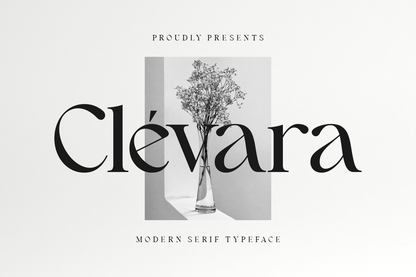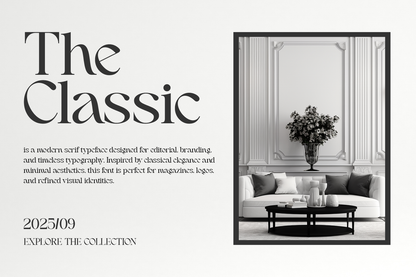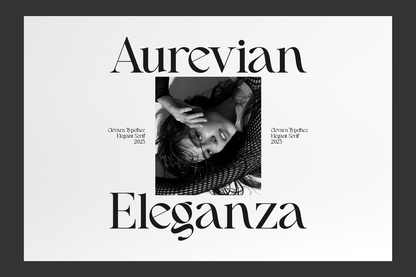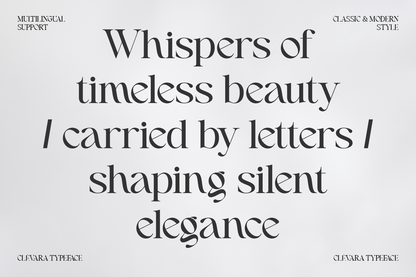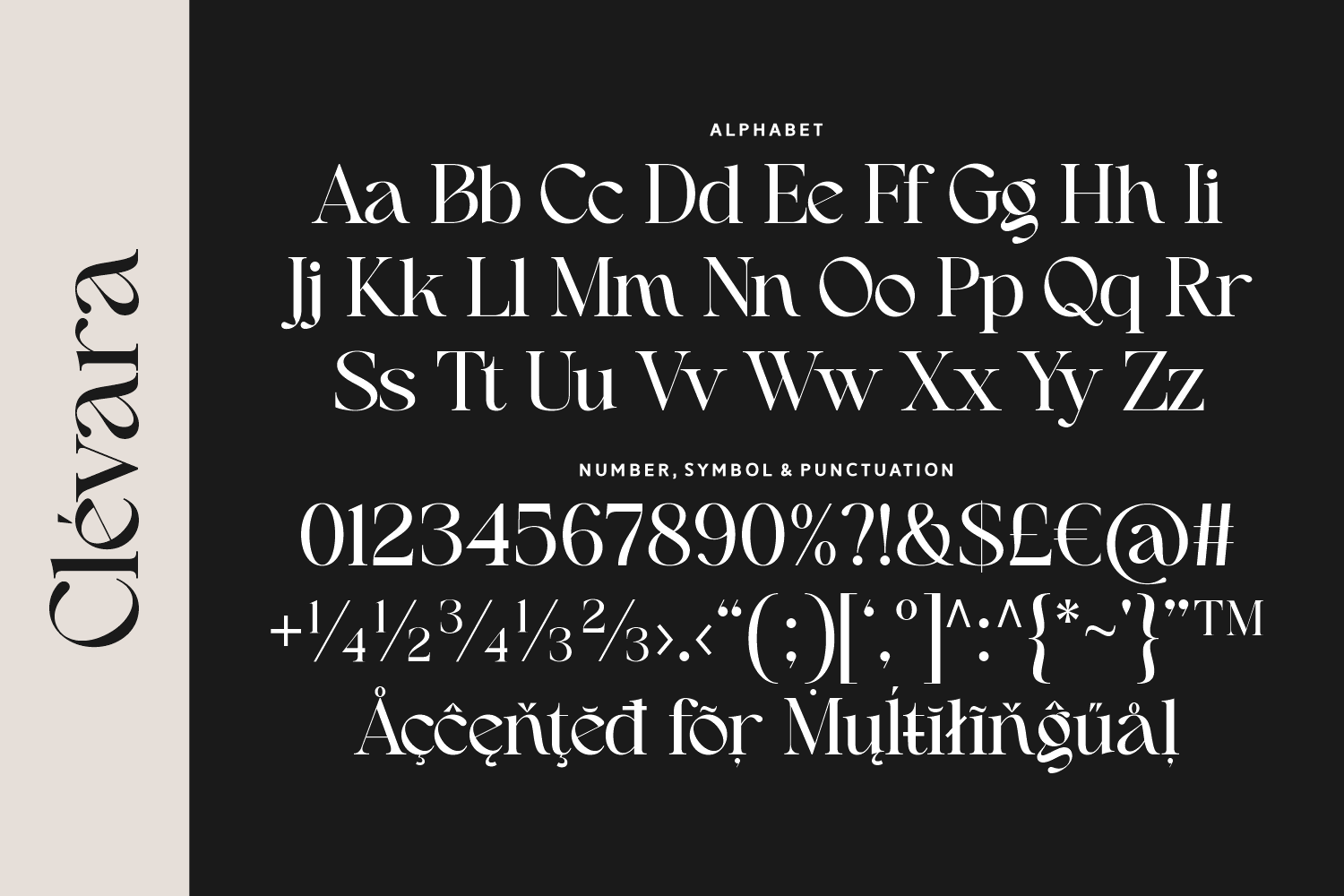
Clévara is a refined modern serif typeface that pairs soft curves with unexpected sharp details, resulting in a font that feels both artistic and upscale.
With elegant alternates and a contemporary look, Clévara is the perfect choice for boutique branding, product packaging, social media quotes, and wedding stationery.